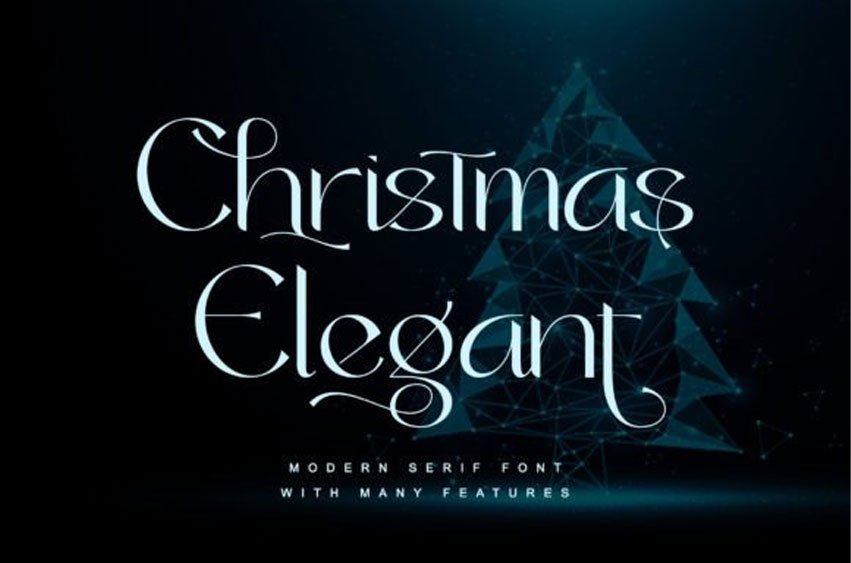
Christmas Elegant Font is a modern and classic serif typeface with a unique style and modern look.
Contemporary and fresh, it is perfect for any design you wish to create. Add it to your creative projects and make them outstanding!